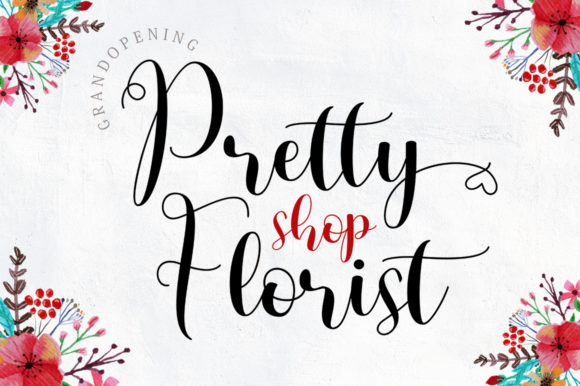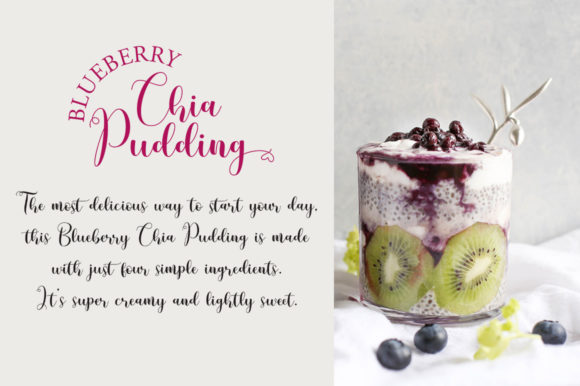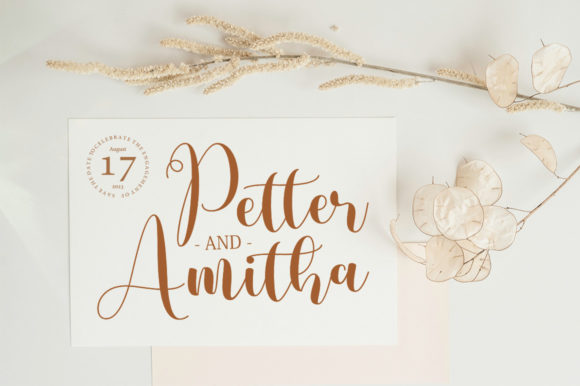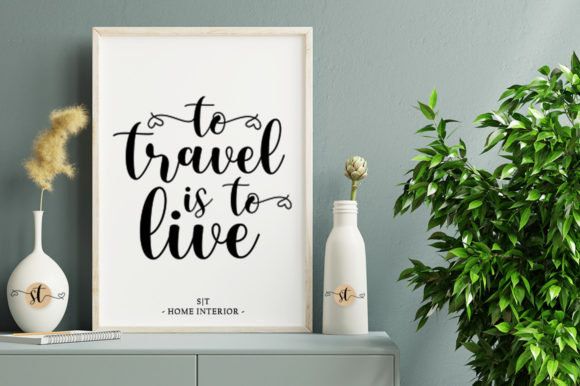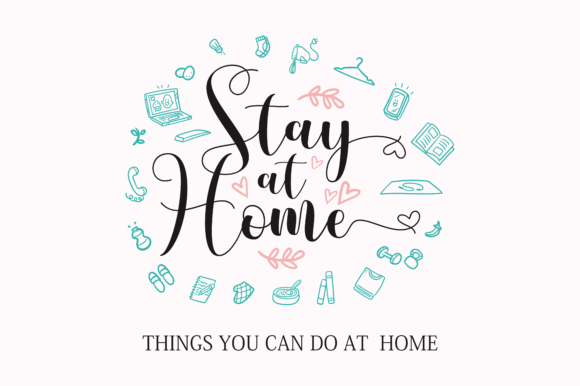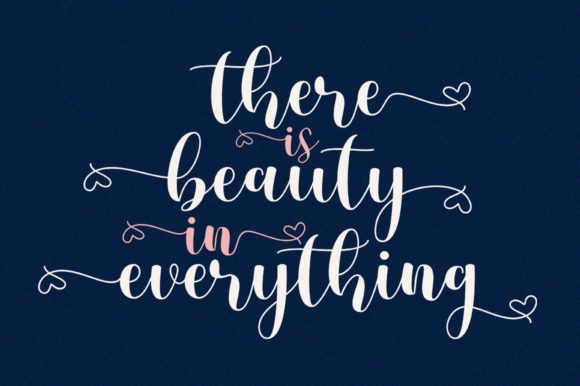
The Elusive Perfect Font: My Journey with Better Restay
I’ll never forget the time I was working on a wedding invitation project, and my client asked for a font that was “elegant, yet playful.” I scoured the internet, tried out dozens of fonts, but nothing seemed quite right. That was until I stumbled upon Better Restay, a unique and elegant handwritten font that has since become a staple in my design toolkit.
An Honest Review of Better Restay
So, what makes Better Restay so special? Here are a few things I love about this font:
- ✨ Unique and elegant: Better Restay has a distinctive, hand-crafted feel that’s perfect for designs that require a personal touch.
- ✅ PUA encoded: This means that accessing glyphs and swashes is a breeze, giving you even more creative control.
- 💕 Versatile: Better Restay looks beautiful on a variety of designs, from wedding invitations and thank you cards to logos and greeting cards.
Of course, no font is perfect, and Better Restay does have a few small quirks:
- 🤔 Some characters may require adjusting: Depending on the design, you may need to tweak certain characters to get the spacing just right.
- ⚠️ Not ideal for body text: Better Restay is best used for headlines, titles, and short paragraphs – it’s not the most readable font for longer blocks of text.
The Story Behind Better Restay
Rumor has it that Better Restay was inspired by the designer’s love of handwritten letters and vintage typography. The goal was to create a font that was both elegant and approachable – perfect for designs that require a personal touch.
| Font Name | Better Restay Font |
| Author | rckystudio |
| Is Better Restay suitable for body text? | No, Better Restay is best used for headlines, titles, and short paragraphs. It’s not the most readable font for longer blocks of text. |
| Is Better Restay available in different weights or styles? | Currently, Better Restay is available in a single weight. However, the designer may release additional weights or styles in the future. |